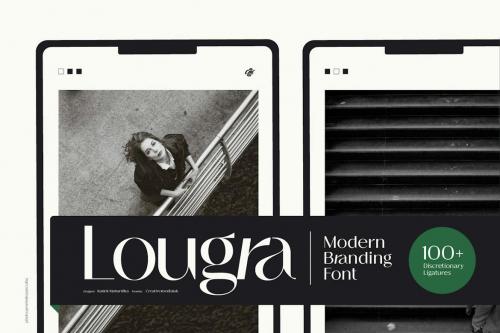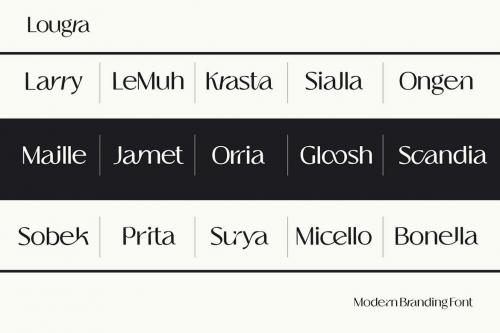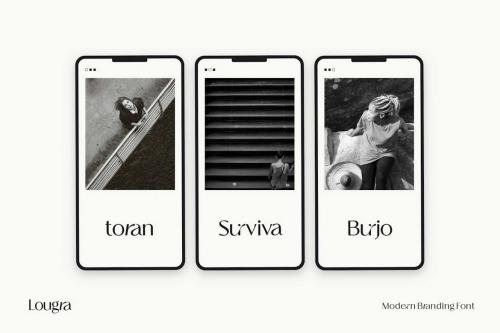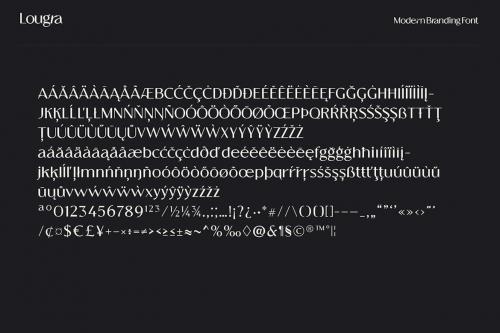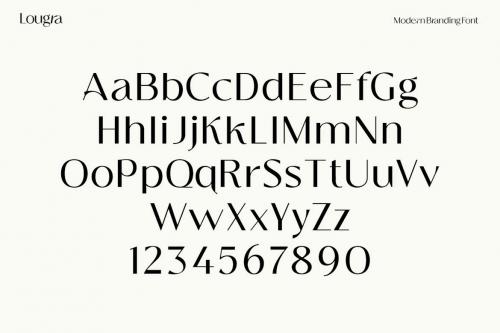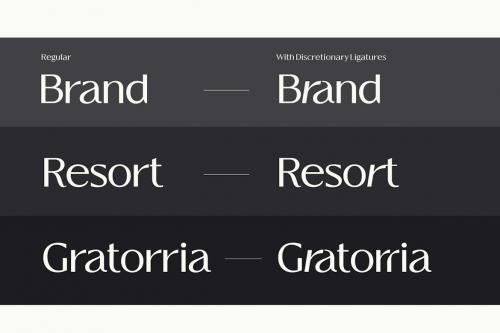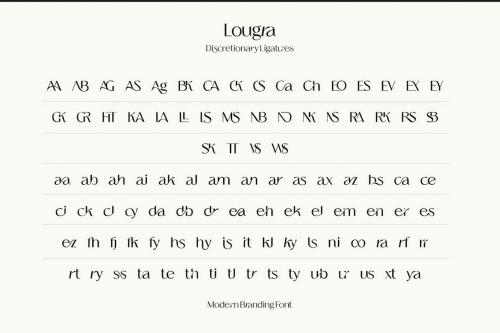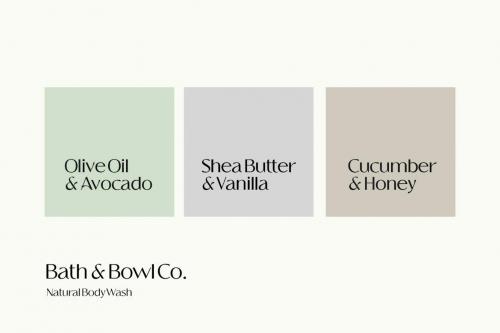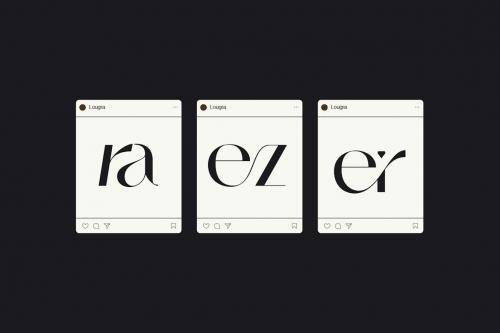
洛格拉 - 现代 branding 标志字体
Lougra - Modern Branding Logo Font
Lougra is elegant and minimal modern sans serif font. Monograms or connected letters are very popular; apart from looking elegant, the monogram will also present an impression that sticks in the eyes of the audience. Lougra contained more than 100+ monograms or ligatures, making designing an initial or logo easier.
Lougra is elegant and minimal modern sans serif font.
Monograms or connected letters are very popular; apart from looking elegant, the monogram will also present an impression that sticks in the eyes of the audience. Lougra contained more than 100+ monograms or ligatures, making designing an initial or logo easier.